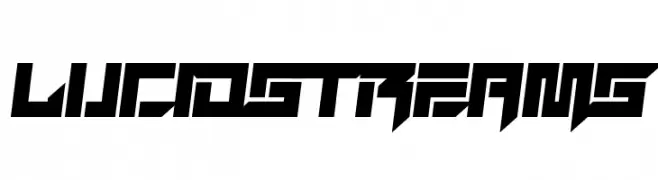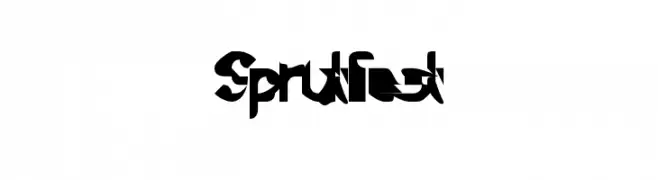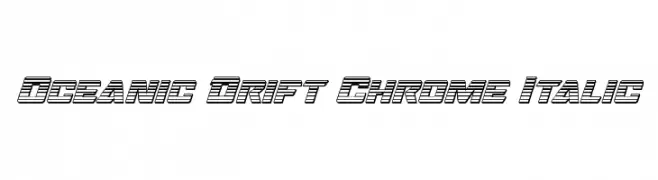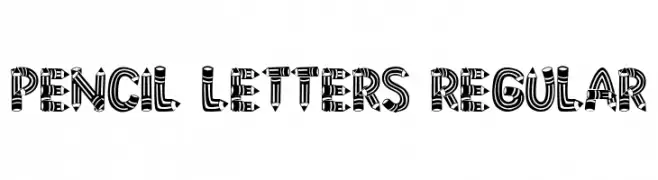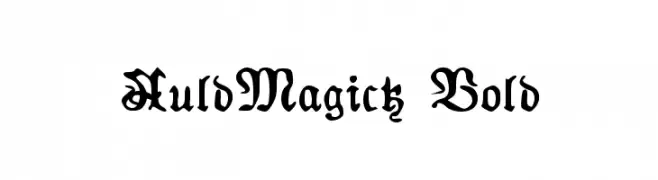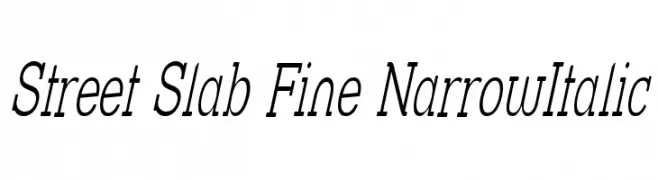
A bold, futuristic font with sharp angles and geometric shapes.
A bold, angular font with a dynamic and geometric style.
A bold, futuristic italic font with a chrome-like, outlined design.
A pixelated, grid-based font with a modern, digital look.
A playful font with letters styled as pencils, ideal for educational themes.
A decorative, medieval-inspired font with intricate flourishes.
A refined, narrow, and italicized font with a modern yet classic style.